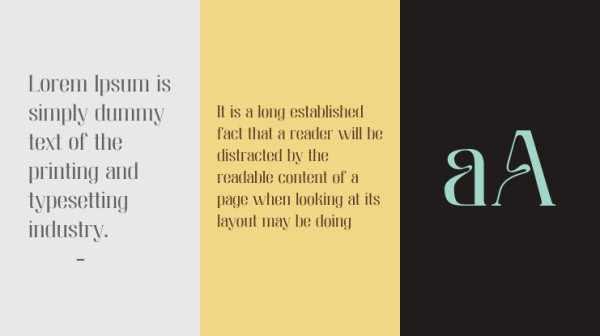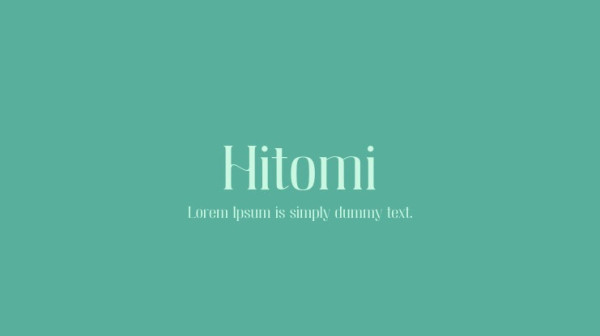
Hitomi Font
Hitomi Font is a serif font with special wavy characters. Ideal for logos, handwritten quotes, product packaging, header, poster, merchandise, social media & greeting cards.